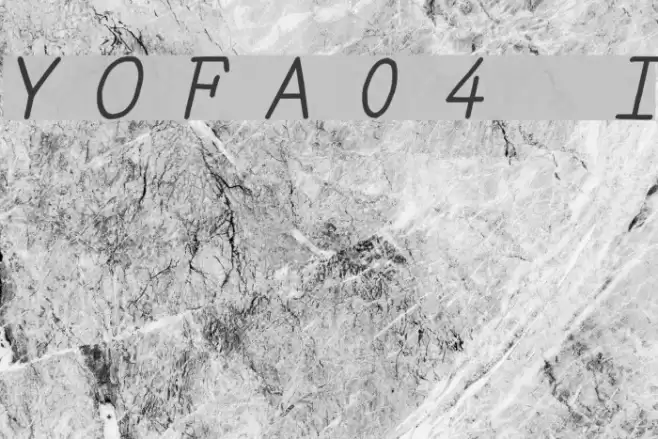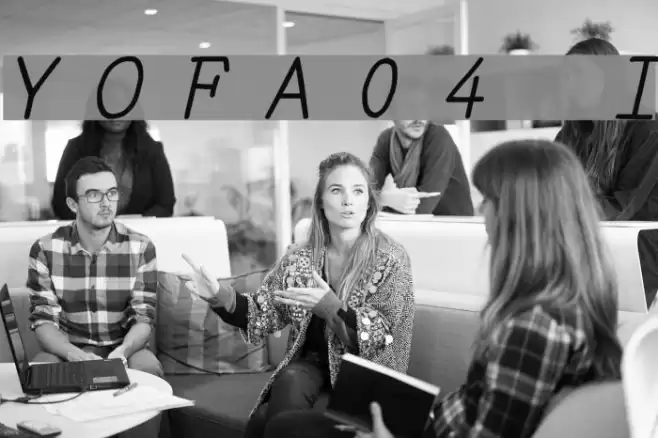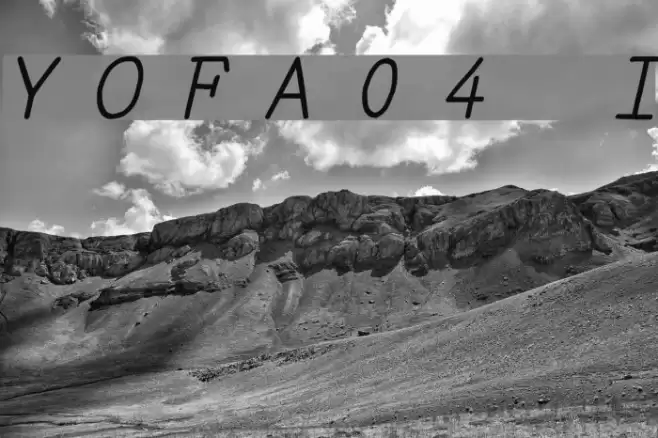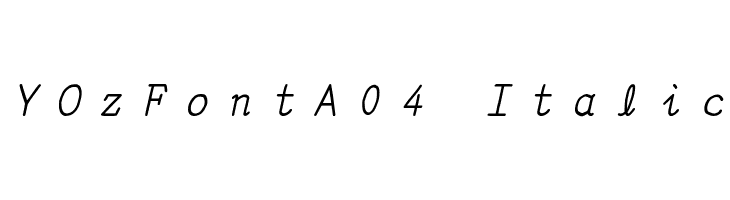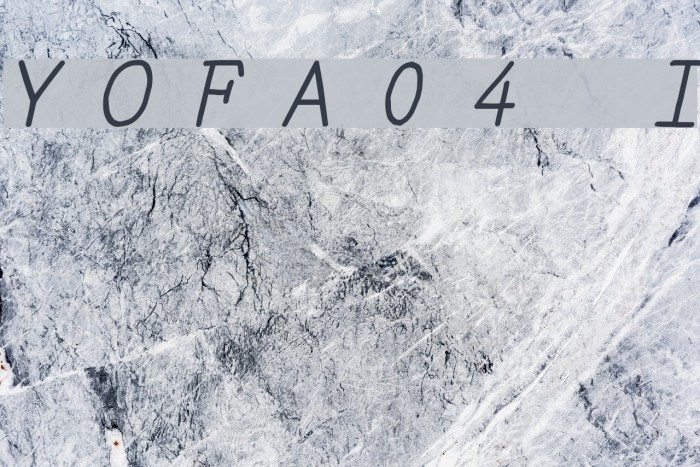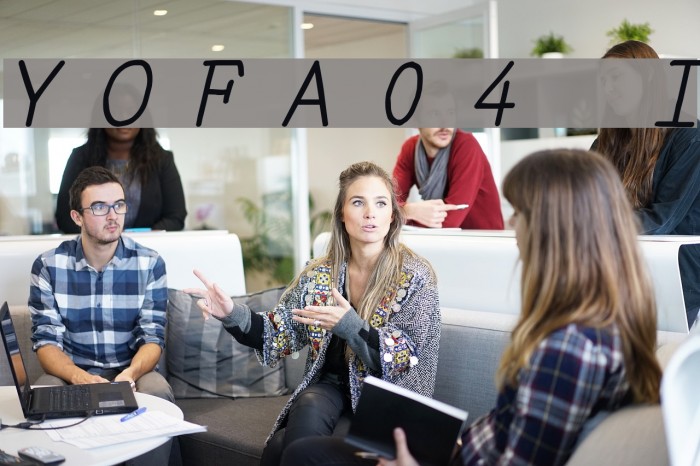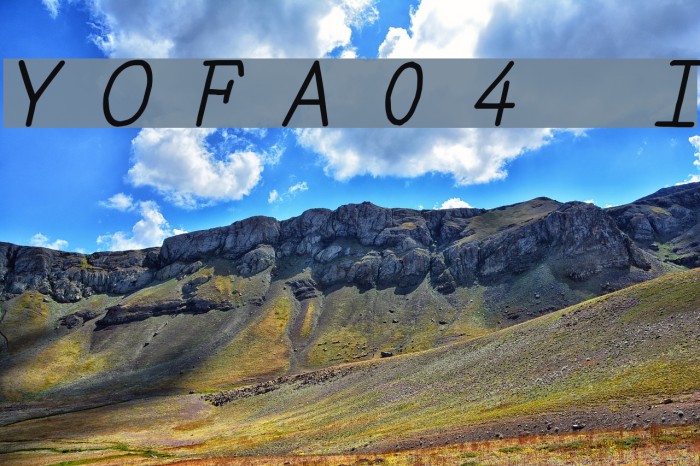
YOzFontA04 Italic Font
YOzFontA04 Italic Description
This font features a classic italic style with a slight slant, giving it a dynamic and elegant appearance. The characters are well-proportioned, with a consistent stroke width that maintains readability while adding a touch of sophistication. The uppercase letters are slightly taller than the lowercase, providing a balanced contrast. The numerals are clear and distinct, matching the overall style of the alphabet. Special characters are included, maintaining the font's cohesive look. This font is versatile, suitable for both formal and creative projects.
An elegant italic font with a classic and sophisticated style from Uncategorized fonts.
- Proposed Projects: Ideal for wedding invitations, elegant branding, formal documents, and artistic projects.
- Overall Style: Classic
- Use Case: Headlines, Invitations, Branding